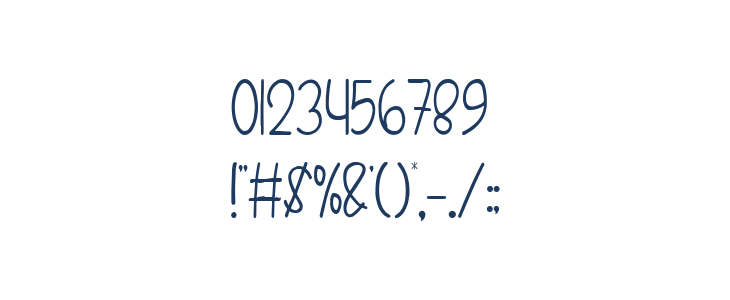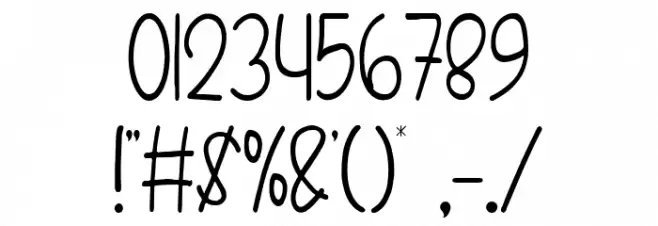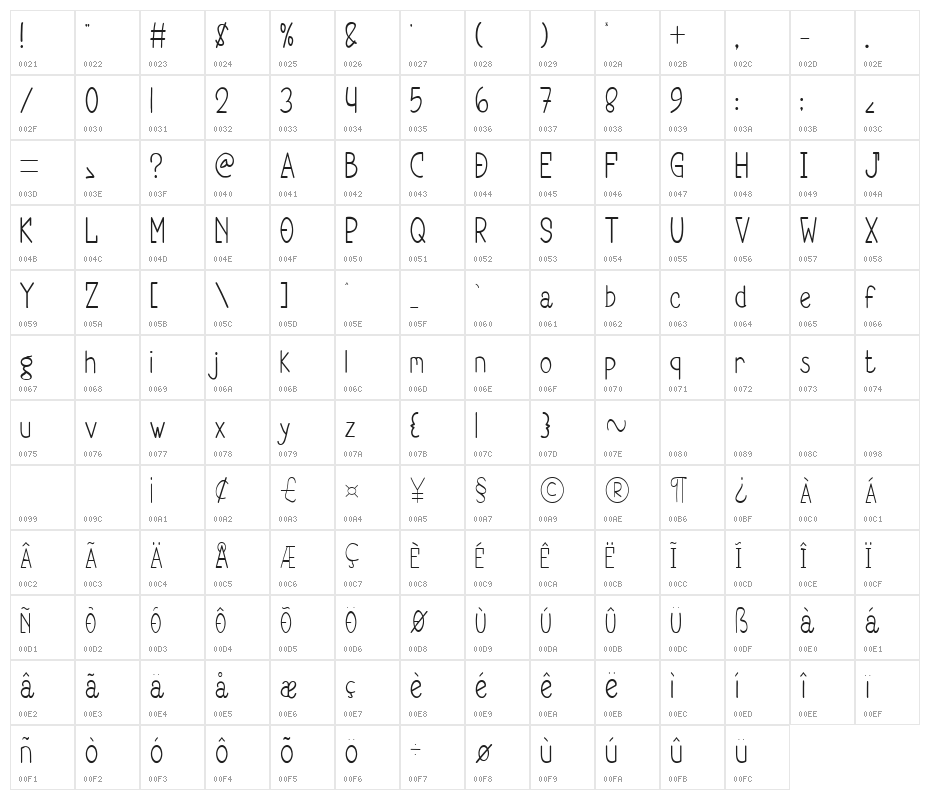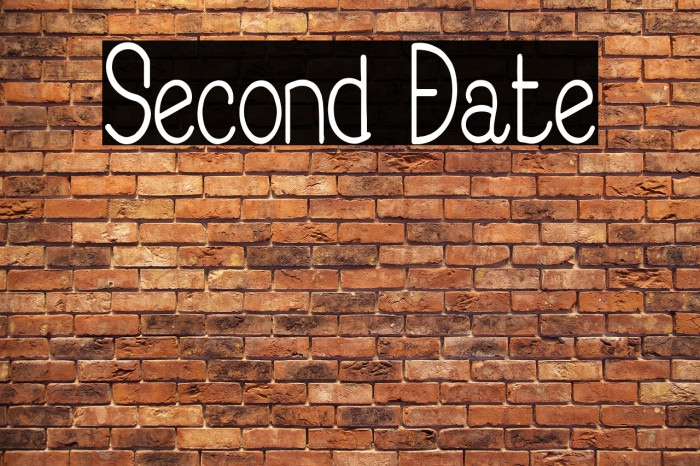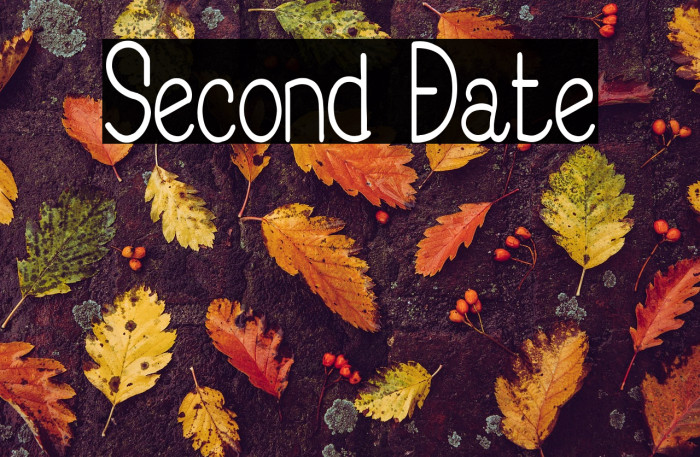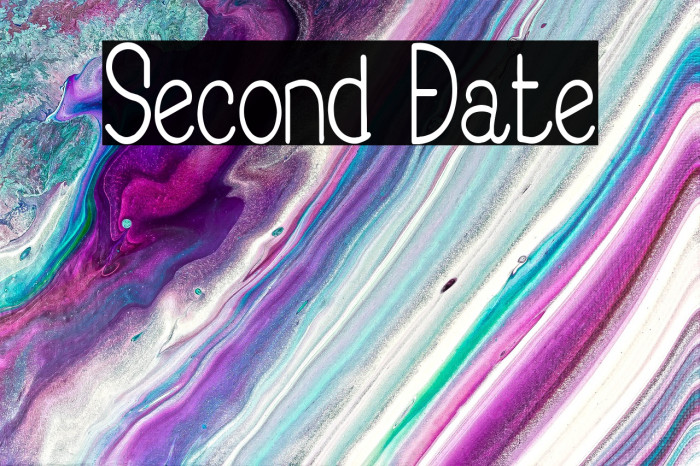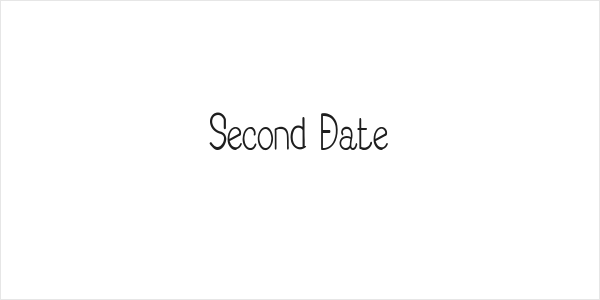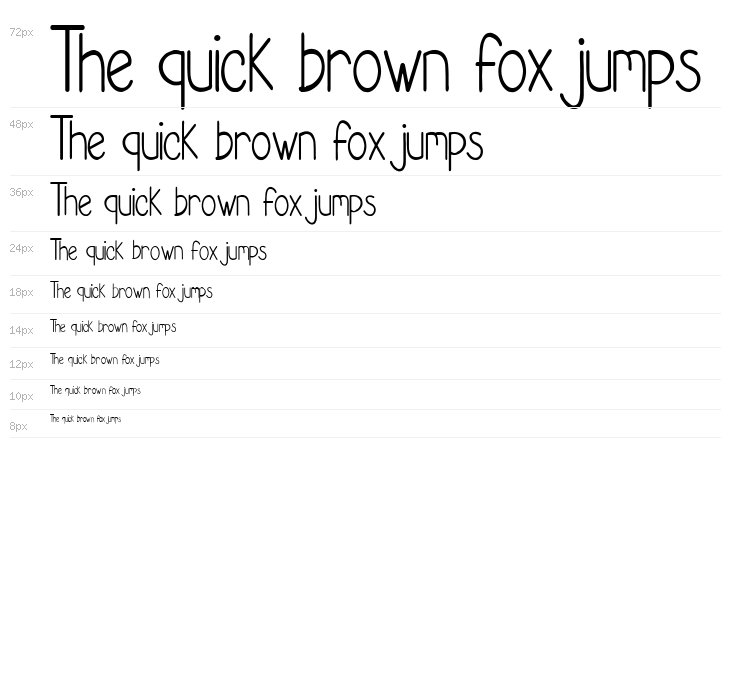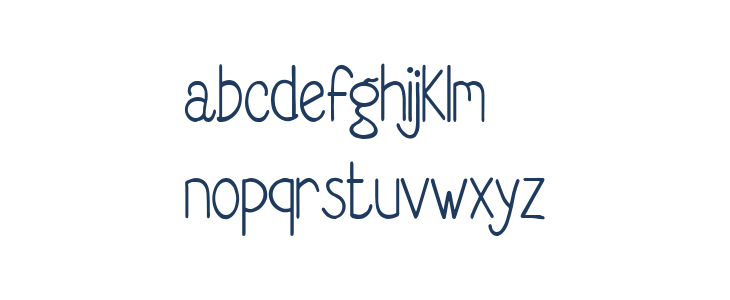
Second Date Font
Second Date Description
This font features a playful and quirky design, characterized by its tall, narrow letterforms and rounded edges. The uppercase letters are distinct with a slight whimsical touch, while the lowercase letters maintain a consistent style that complements the uppercase. The numerals are clear and easy to read, with a similar playful aesthetic. Special characters are designed to match the overall style, making them suitable for creative projects. The font's unique personality makes it ideal for projects that require a fun and informal tone.
| Overall Style | Playful, Quirky |